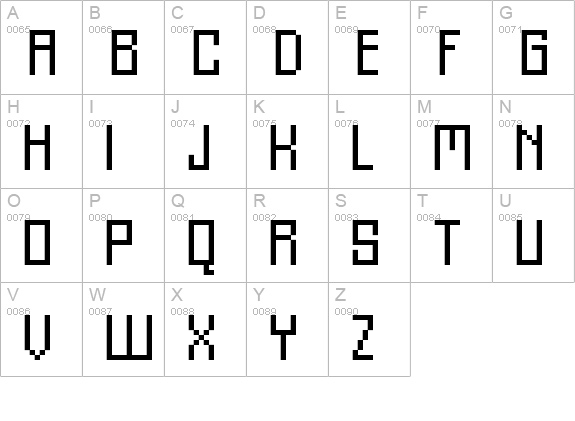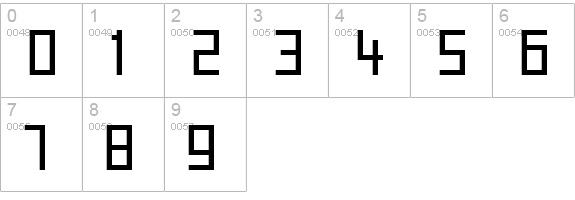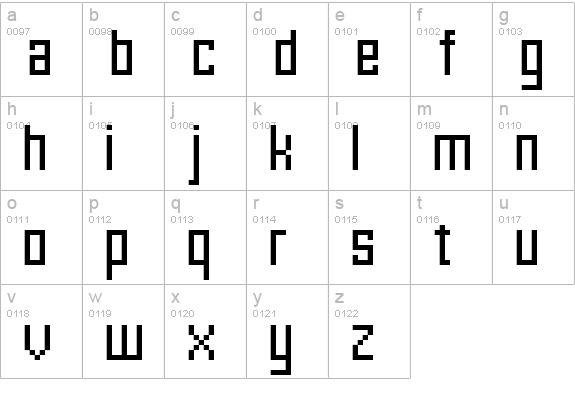
FFF Alaska Condensed Font Details
FFF Alaska Condensed is a distinctive, condensed-width variant in the FFF typeface family \xE2\x80\x94 well suited to design and typography projects.
The FFF Alaska Condensed font is a sleek and modern typeface that exudes elegance and sophistication. Its condensed design makes it perfect for creating eye-catching headlines, titles, and branding materials. With its clean lines and sharp edges, this font is sure to make a bold statement in any design project. Best of all, the FFF Alaska Condensed font is available for free download at FontsMarket.com. Take advantage of this opportunity to enhance your designs with a high-quality and professional font that will elevate your work to the next level. Download the FFF Alaska Condensed font today and unleash your creativity!